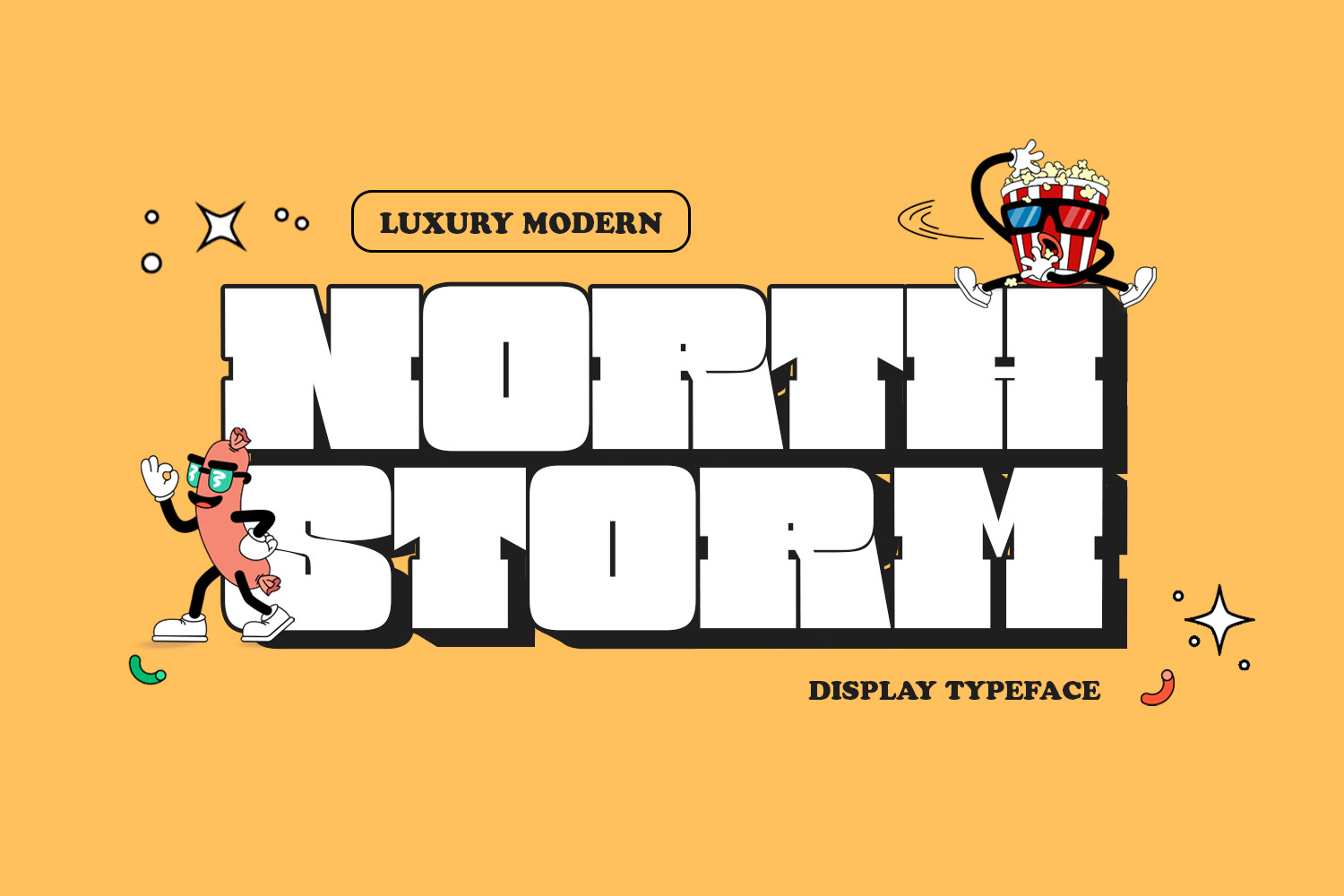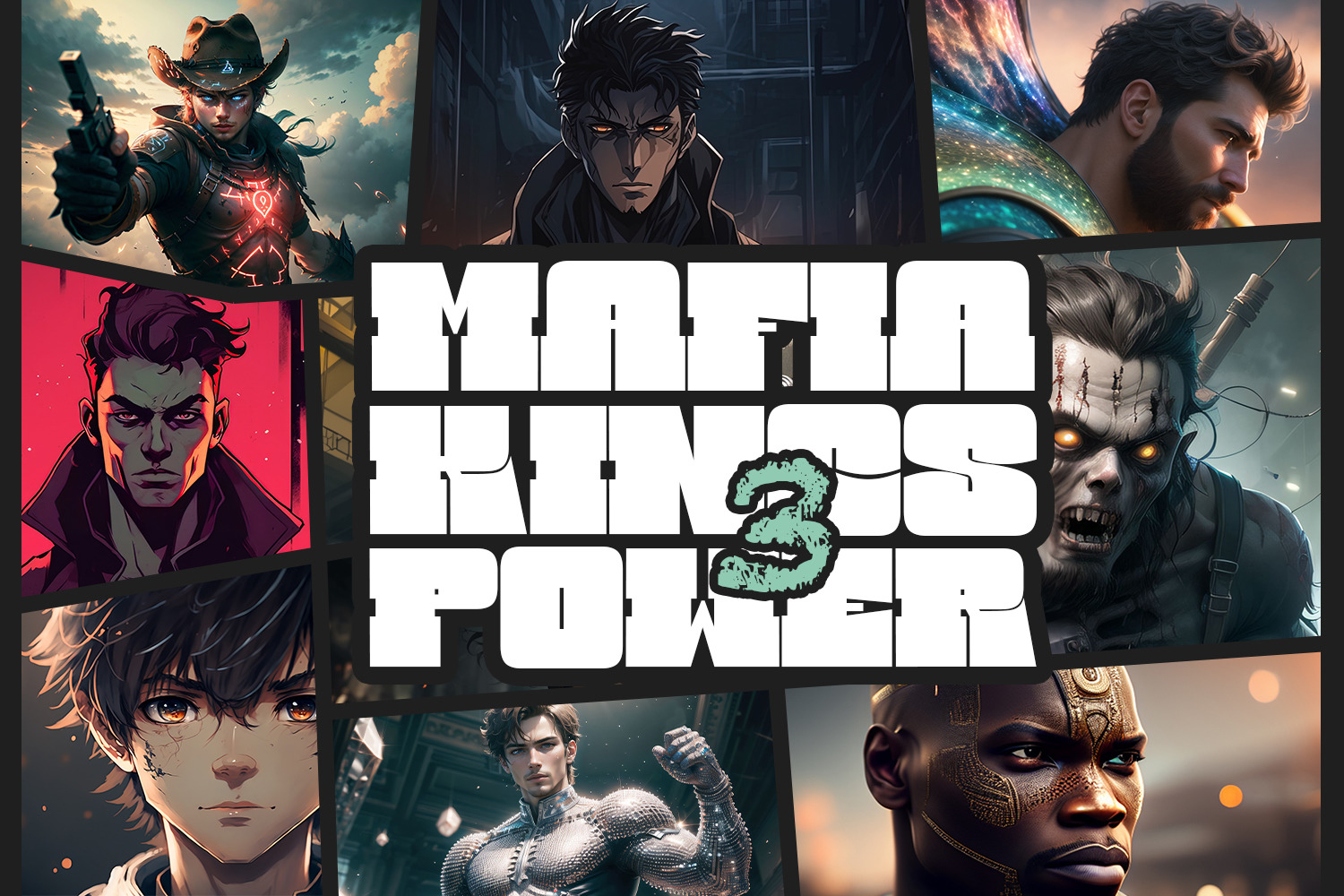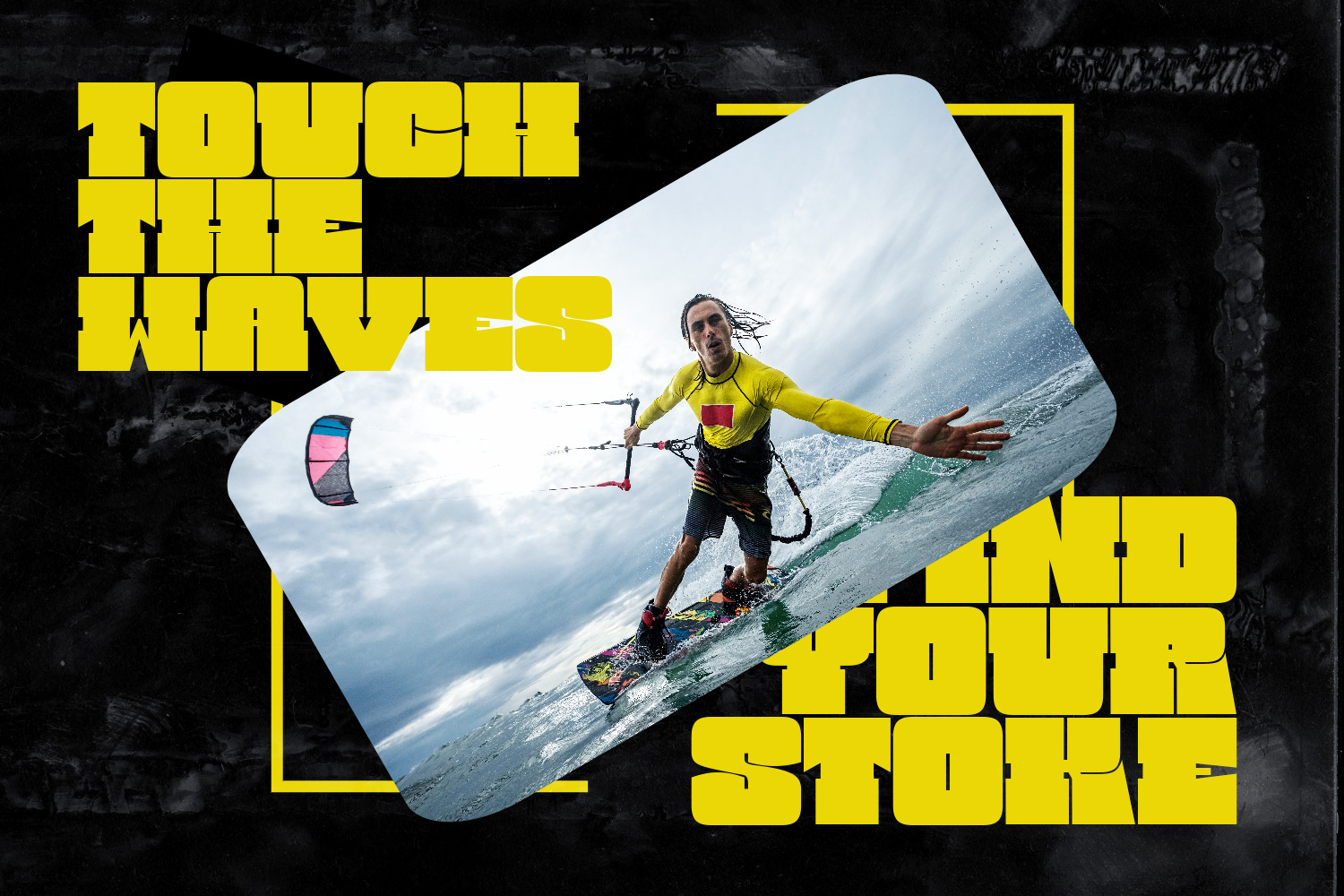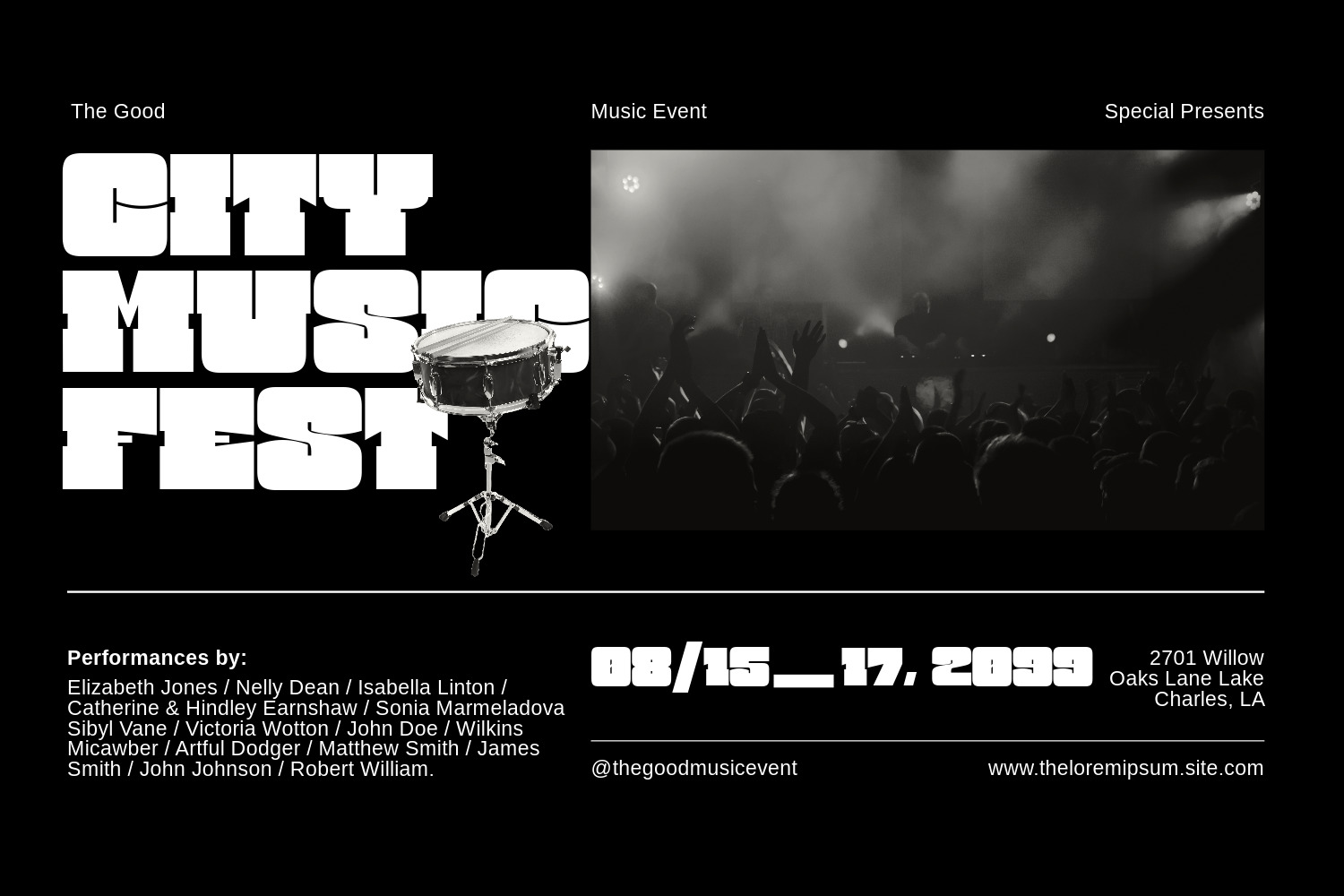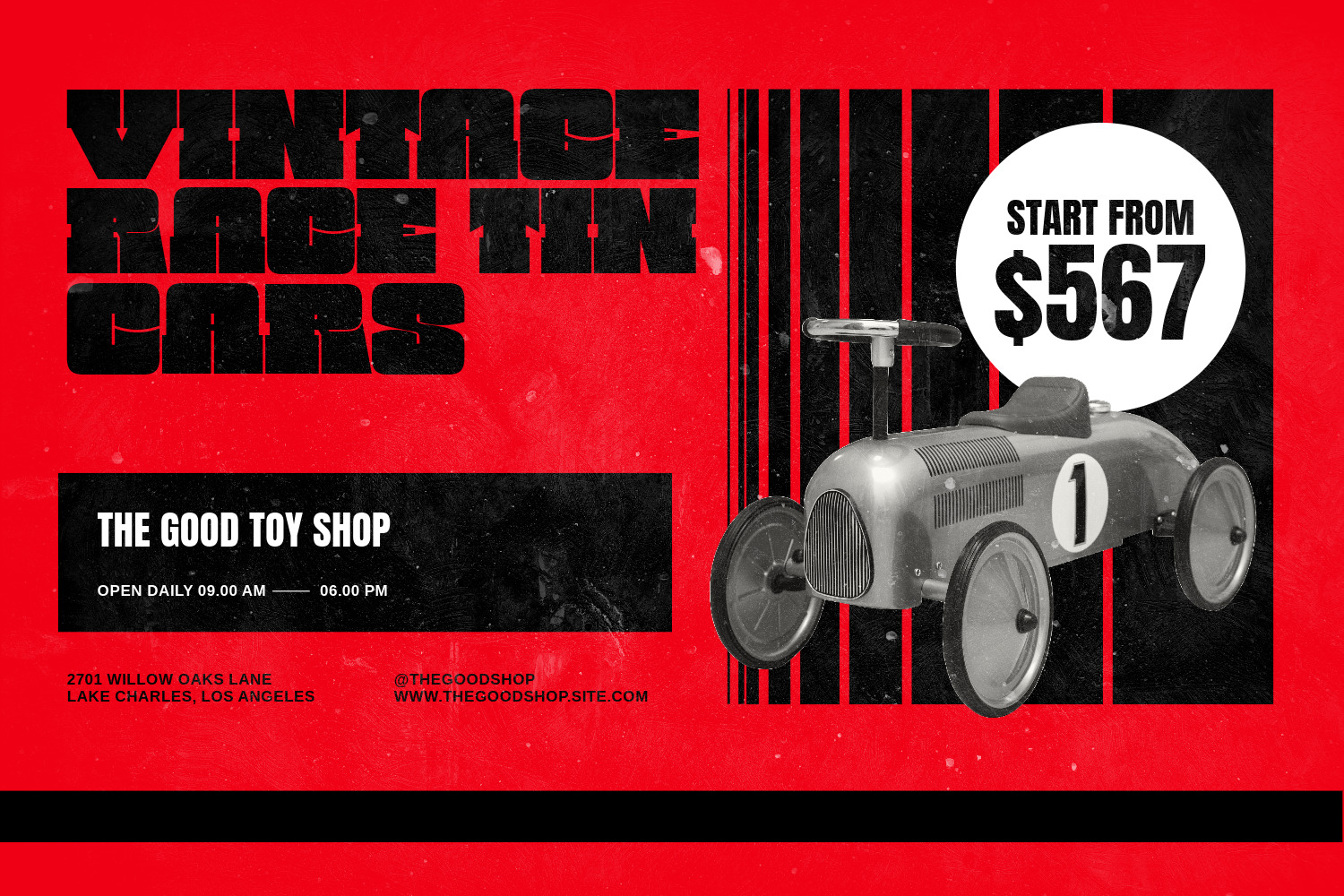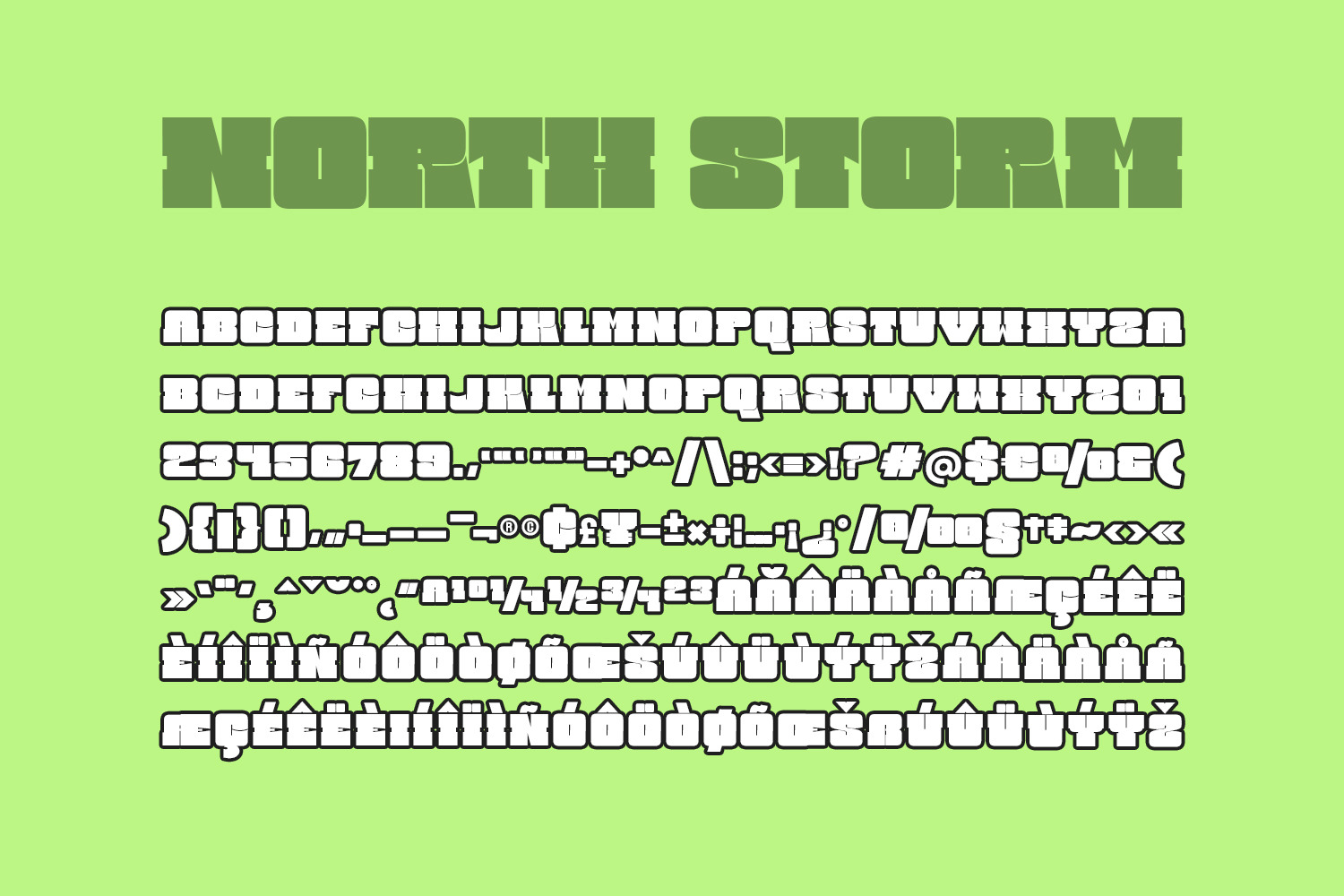
North Storm Font
Introducing North Storm Display new generation Decorative Typeface. North Storm Typeface created with the vision of to attract the audience to your brand. The finest details of this typeface are methodically and mathematically created. North Storm is created with all the tasks of a corporate font and also for the usage in a variety of projects, including branding, logos, titles, headlines, posters, screens, display, digital ads, and everything else.